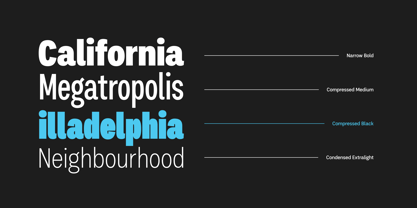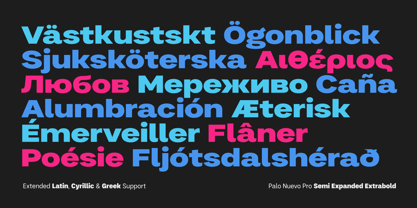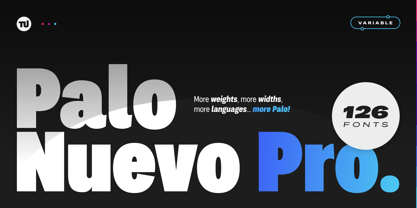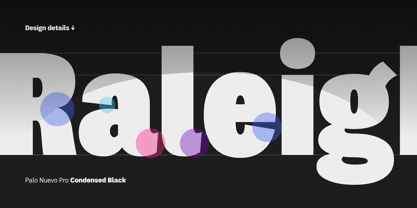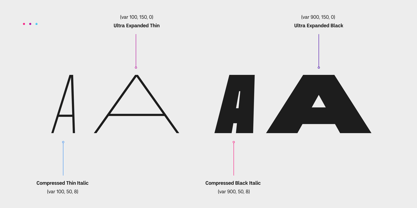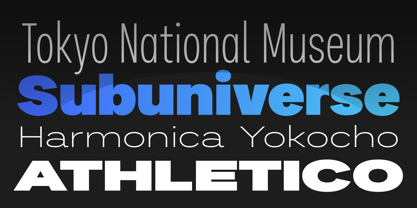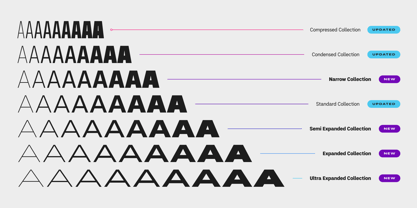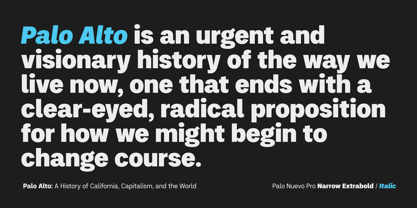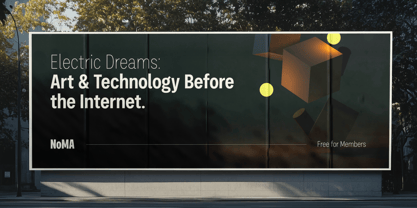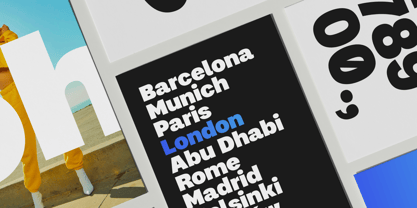
Palo Nuevo Pro
von TypeUnion
Die Schriftfamilie Palo Nuevo Pro wurde von Dan Jones entworfen und von TypeUnion veröffentlicht. Palo Nuevo Pro enthält 127 Stile und Familienpaketoptionen. Mehr über diese Familie
Palo Nuevo Pro is inspired by our 2019 release Palo, but embellished with more weights, more widths, more characters and more language support for Latin, Cyrillic & Greek, along with a 3-axis Variable font.
From Compressed to Ultra Expanded, Thin to Black, Palo Nuevo Pro is a workhorse of a type system that gives you the tools to create, from large impactful messaging to the small details, we've got you covered.
Use Palo Nuevo Pro for your brand to craft eye-catching visuals built for today's design-conscious consumer.
Palo Nuevo Pro comes with many stylistic alternates, along with case-sensitive punctuation, plus language support for Extended Latin, Cyrillic & Greek if your brand is international.